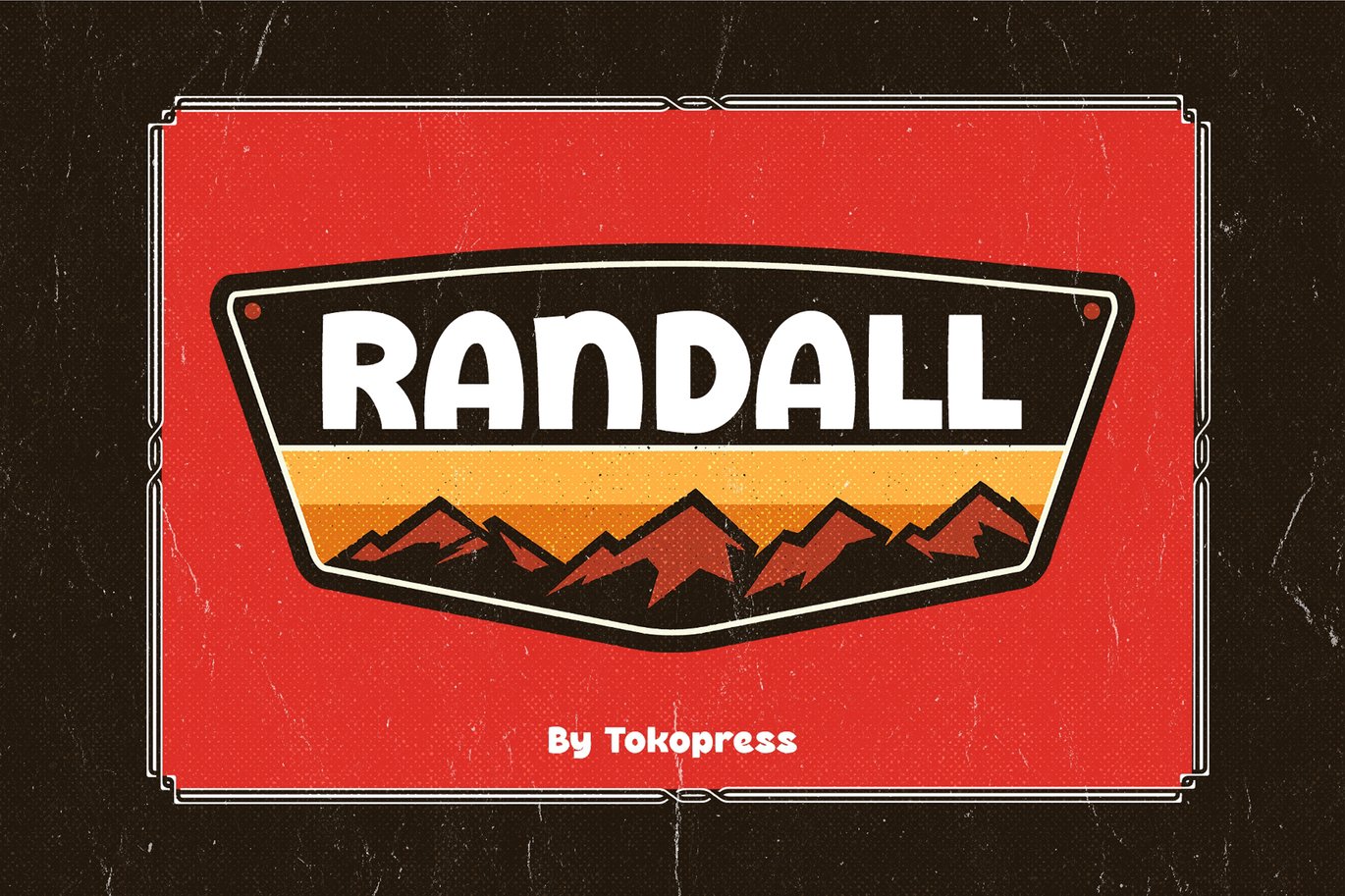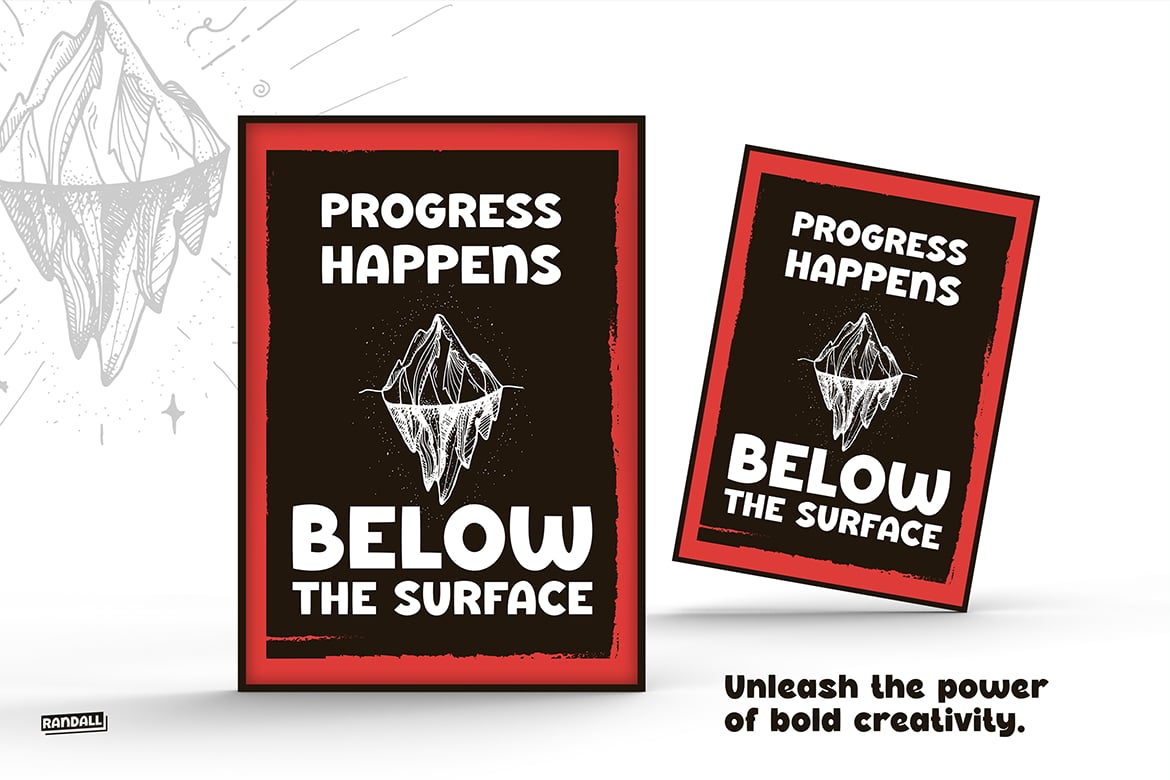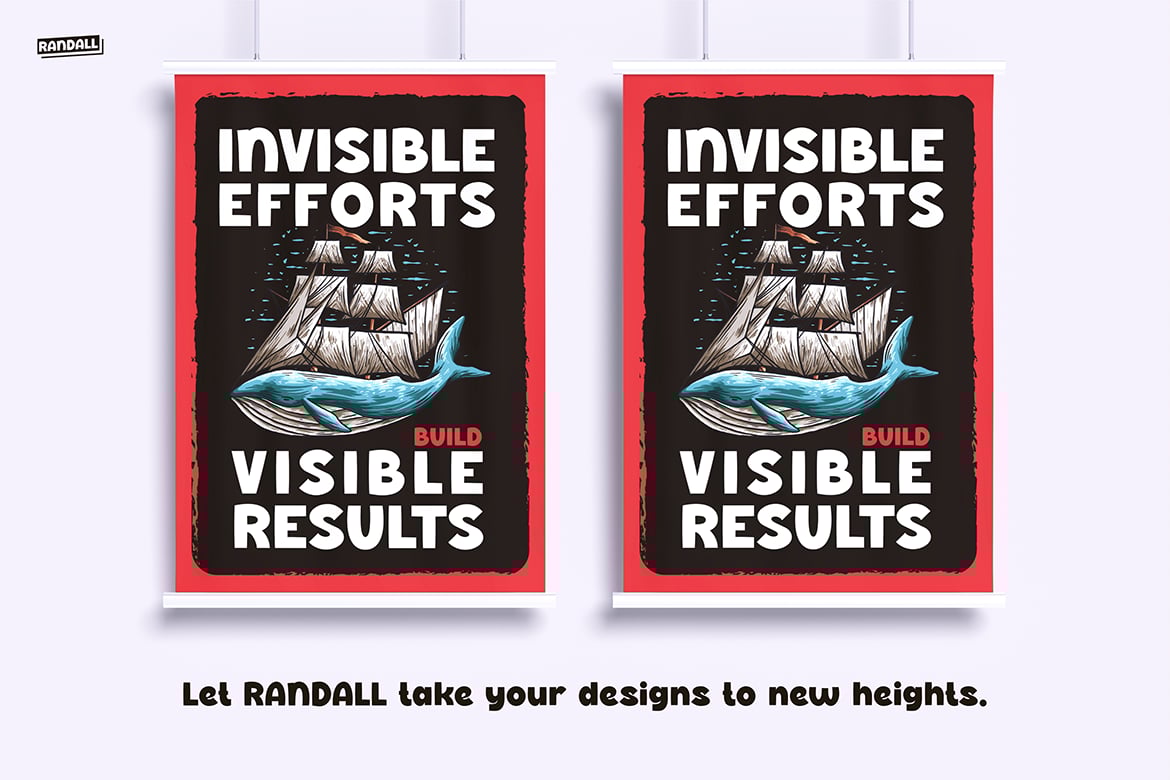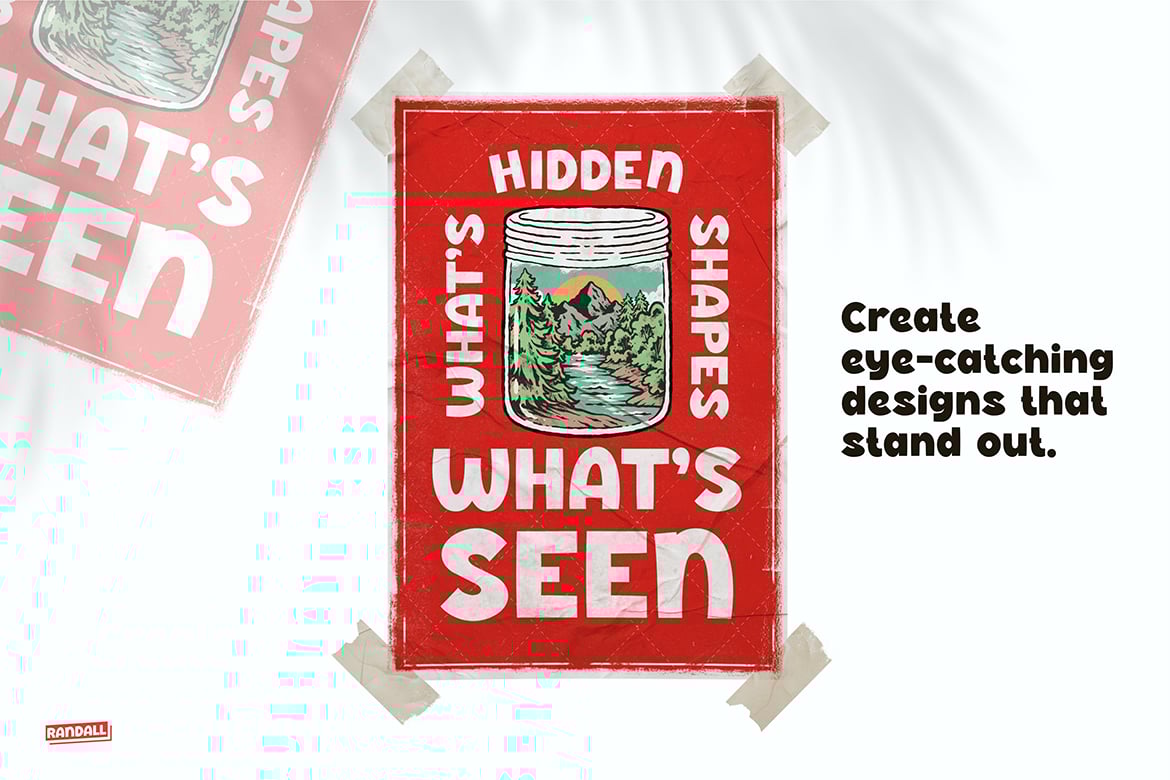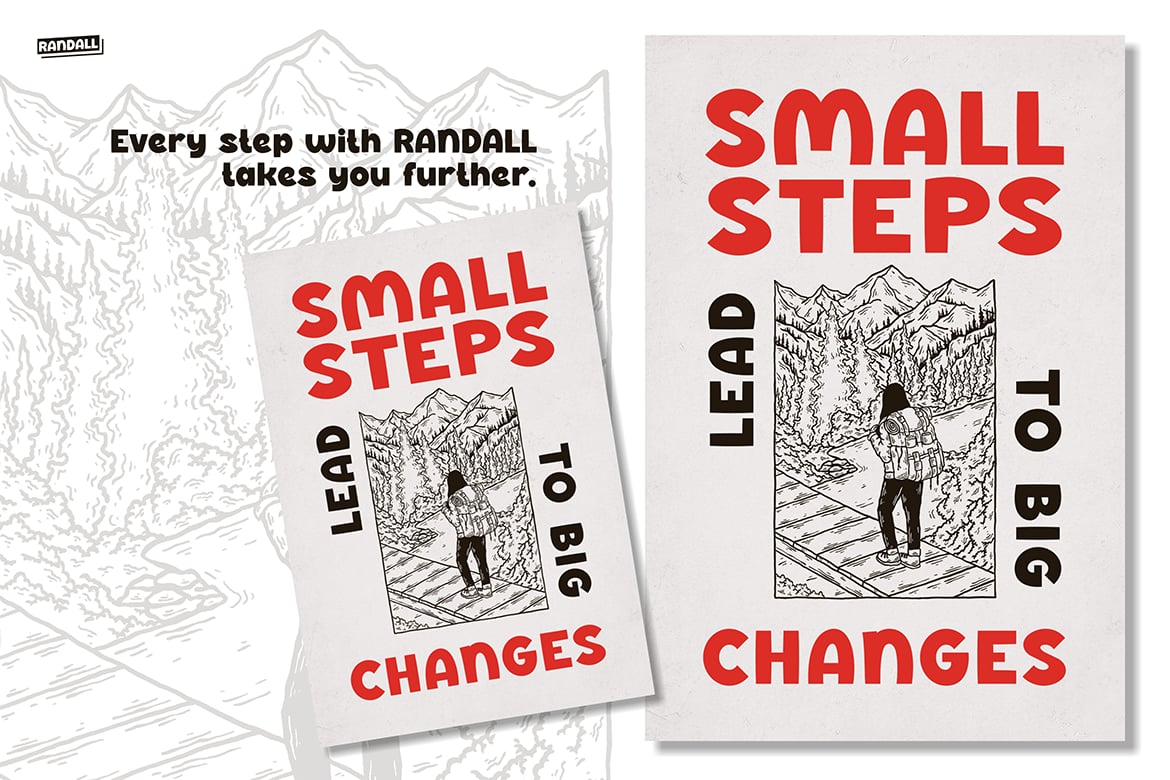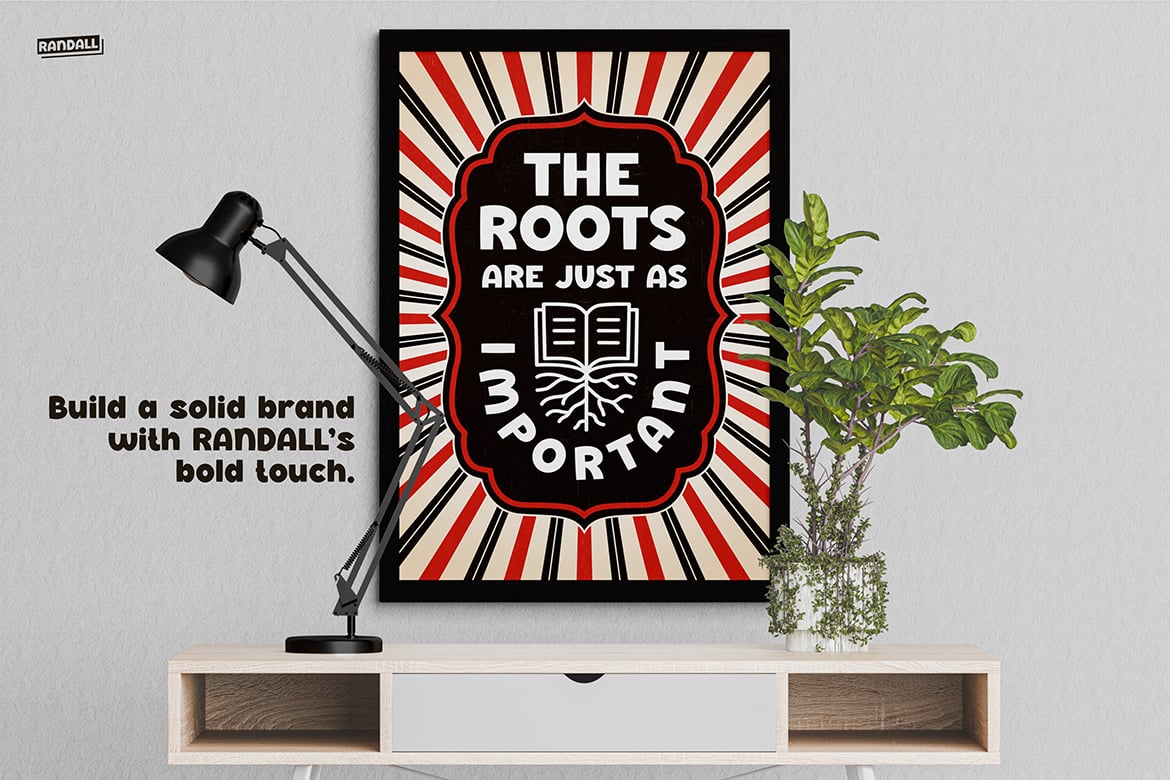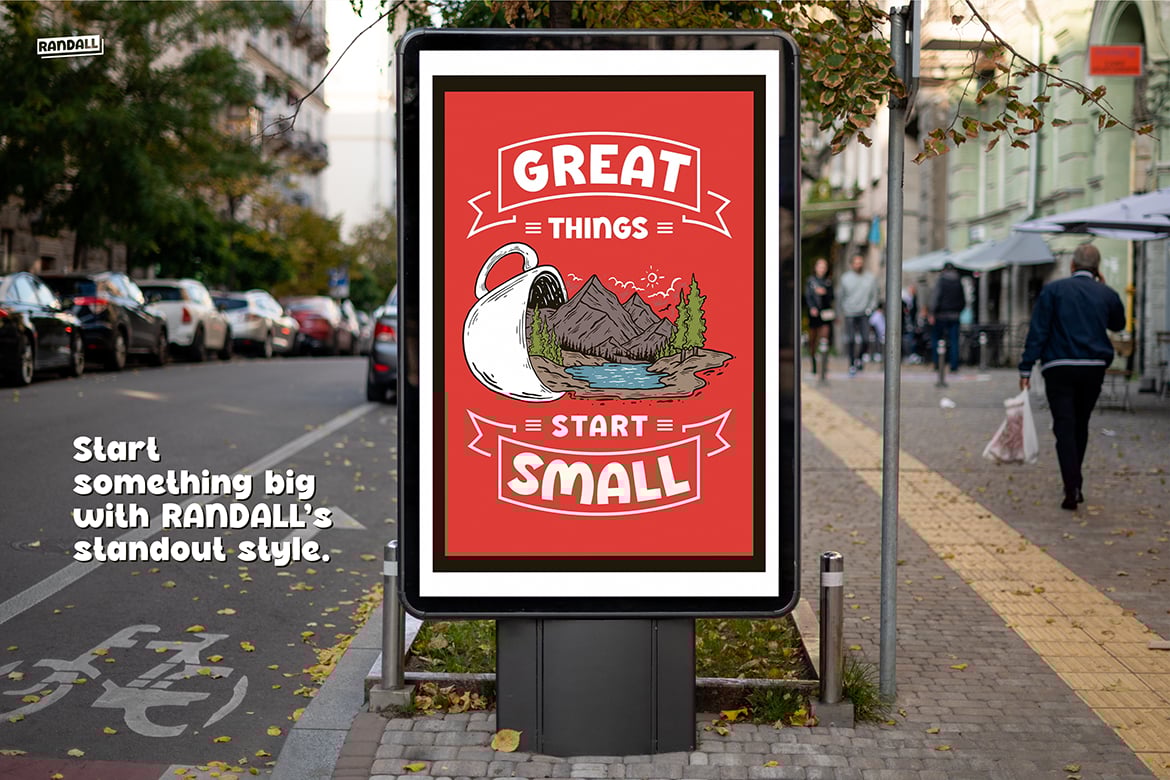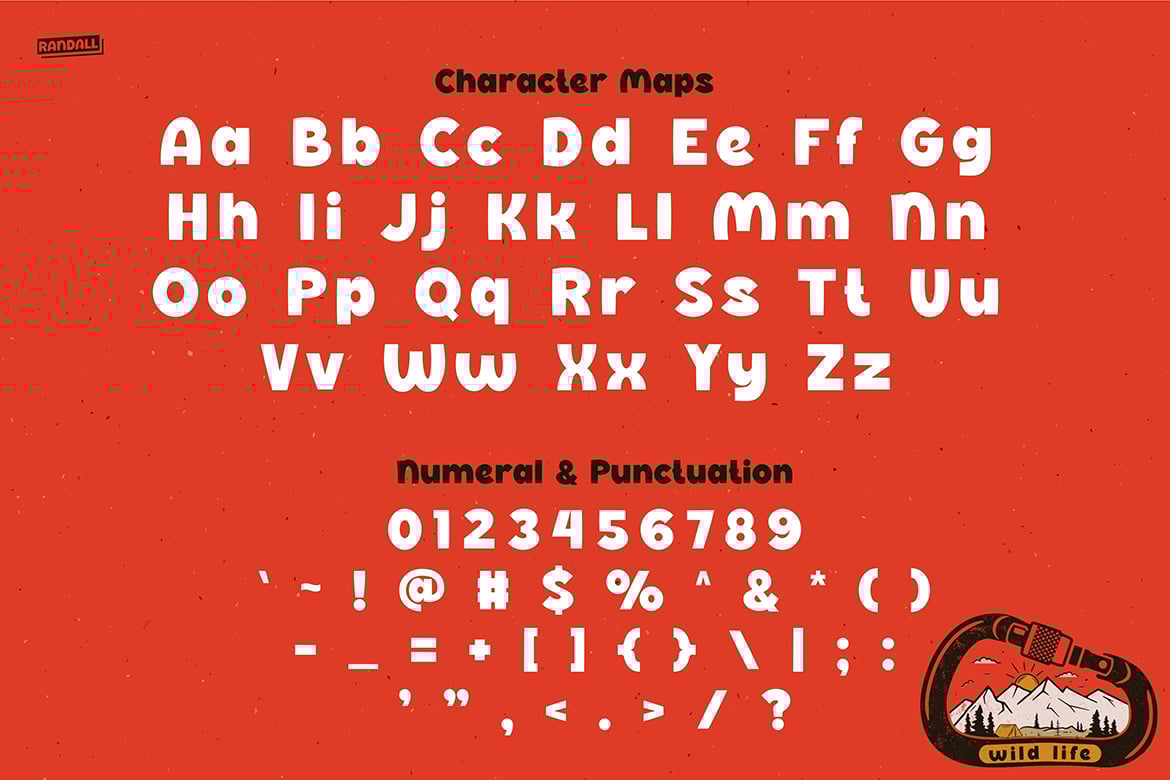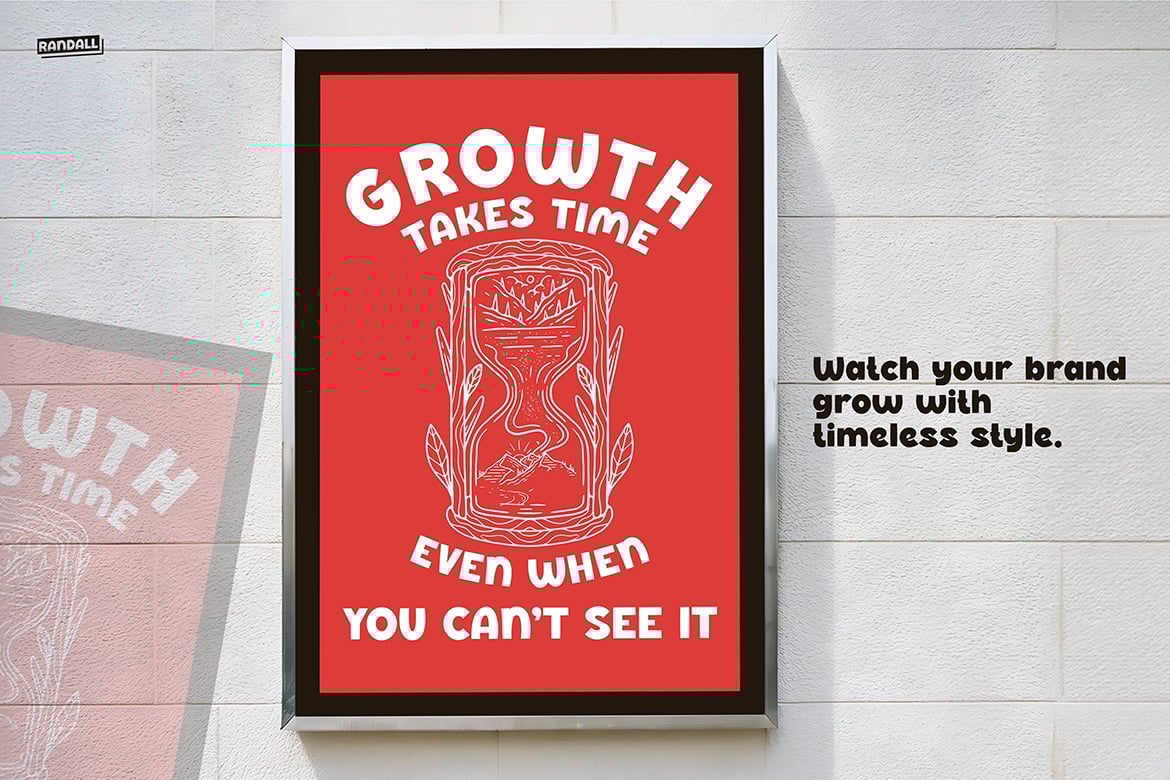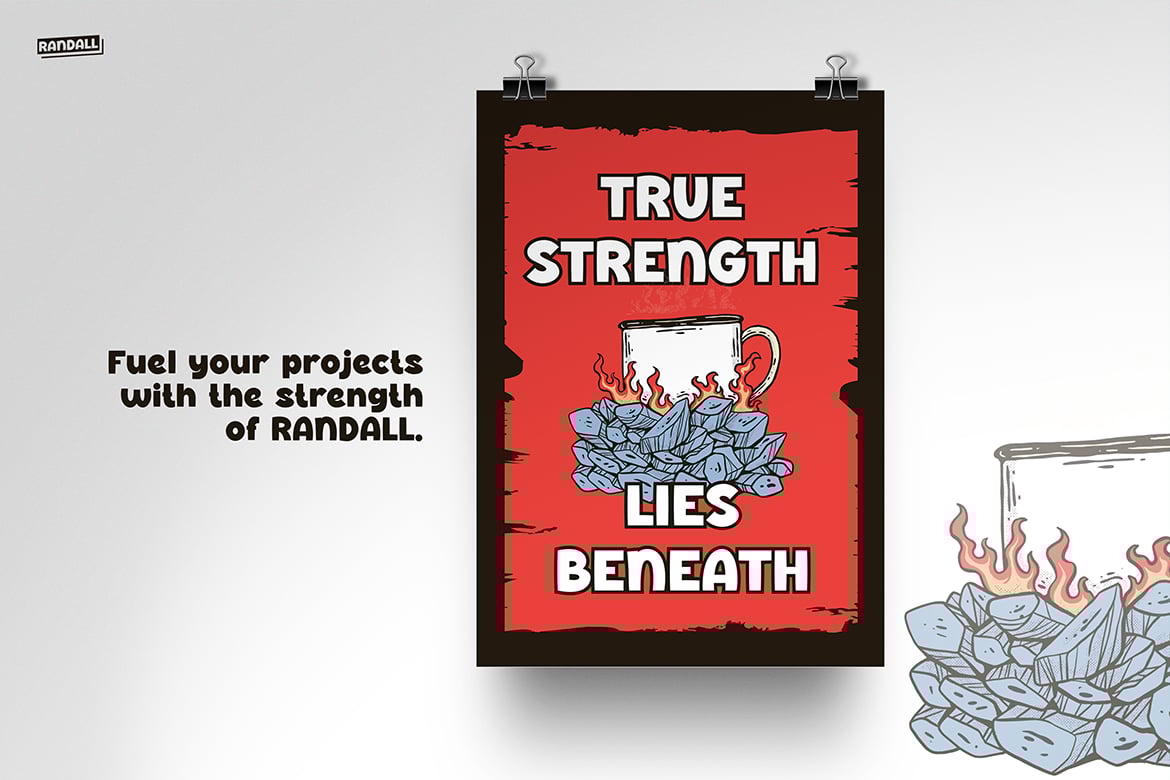
Retro Font – Randall
Randall – A Retro Adventure Typeface for Bold Posters
Randall is a retro and vintage-inspired typeface that captures the spirit of classic adventures.
Perfect for bold posters, this font exudes a sense of exploration and courage from the past.
With its sharp lines and authentic aesthetic, Randall adds a dramatic, storytelling touch to your designs, creating an unforgettable visual experience.